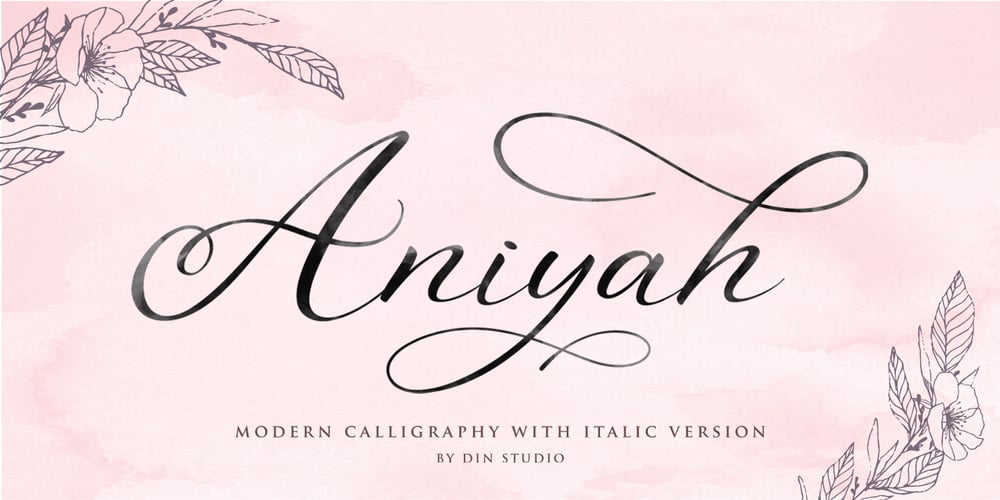
Aniyah Font Family was designed by Donis Miftahudin and published by Din Studio. Aniyah contains 2 styles and family package options. Aniyah Script – Beautiful Calligraphy. Made with naturally handwritten and modern style. it’s bring beautiful and modern typeface. Aniyah Script best use for wedding, branding, logotype and quotes.Included : Aniyah Script Regular version Aniyah Script Italic version Features : Beautiful ligatures PUA encoded Multilingual Support Numbering & amp; Punctuation Swash and alternates